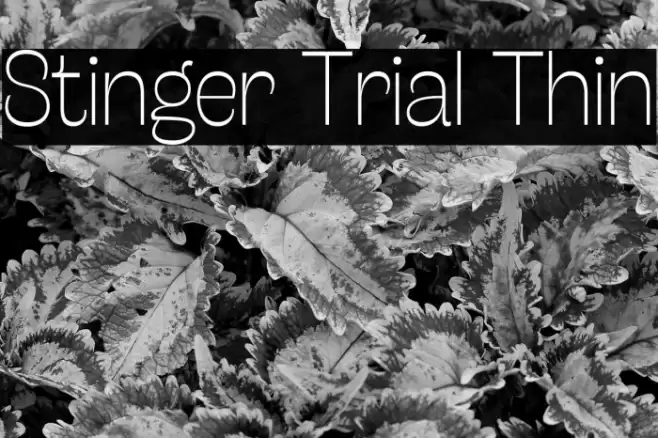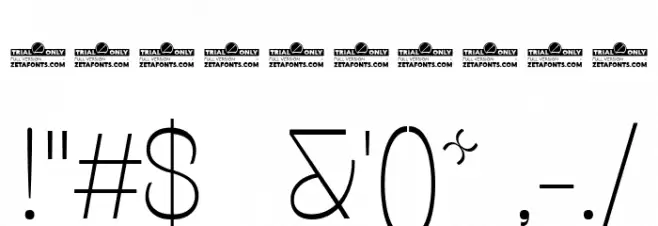
Stinger Trial Thin Font
Stinger Trial Thin Description
This font exhibits a sleek, modern design with a thin, elegant stroke. The characters are crafted with precision, featuring clean lines and a minimalist aesthetic. The uppercase and lowercase letters maintain a consistent style, offering a harmonious look across the alphabet. The numerals and special characters are equally refined, contributing to the font's overall sophisticated appearance. Its thin weight and open structure make it ideal for projects that require a contemporary and airy feel.
A sleek, modern font with thin, elegant strokes and a minimalist design from Regular fonts.
- Proposed Projects: Ideal for modern branding, minimalist posters, elegant invitations, and contemporary web design.